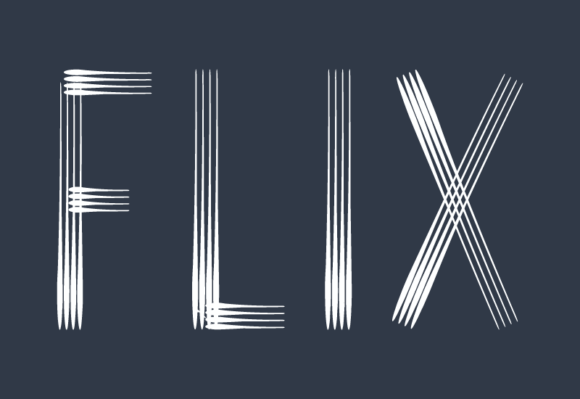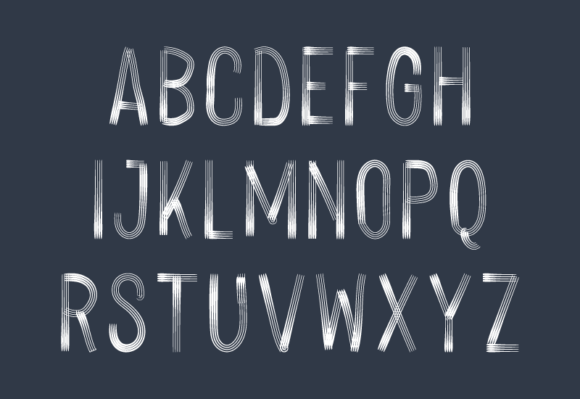
Introducing Flix: The Unbridled Display Font that’s Redefining Typography
In the ever-evolving world of typography, a new font has emerged to shake things up and push the boundaries of conventional design. Say hello to Flix, a contemporary display font that’s as bold as it is unconventional. With its distinctive rough and grunge aesthetic, Flix is the perfect choice for designers and crafters who dare to challenge the status quo and take the road less traveled.
The Birth of Flix: A Font with an Edge
Flix is more than just a font – it’s an attitude, a statement, and a rebellion against the ordinary. Its audaciously rugged design is not for the faint of heart; it’s for those who crave something that stands out from the crowd. The lines in Flix are deliberately rough, giving it a grunge aesthetic that’s raw, untamed, and unapologetic. This font is not about perfection; it’s about character, and the character it exudes is one of unbridled energy and creativity.
What Makes Flix Stand Out?
So, what sets Flix apart from other fonts in the market? Here are a few key features that make it a standout:
- Distinctive Rough and Grunge Aesthetic: Flix boasts a one-of-a-kind rough and grunge aesthetic that’s sure to turn heads. Its irregular lines and shapes give it a unique, hand-crafted feel that’s perfect for designers who want to add a touch of personality to their work.
- Contemporary yet Unconventional: Flix is a contemporary font that’s not afraid to break the rules. Its bold, daring design makes it perfect for projects that require a bit of attitude and swagger.
- Versatility: Despite its bold aesthetic, Flix is surprisingly versatile. It can be used for a wide range of projects, from branding and advertising to packaging and editorial design.
Who is Flix for?
Flix is perfect for designers and crafters who:
- Want to add a touch of edginess to their work
- Are looking for a font that can help them stand out from the crowd
- Appreciate unique, hand-crafted design
- Are working on projects that require a bold, daring aesthetic
How to Use Flix Effectively
To get the most out of Flix, here are a few tips:
- Use it sparingly: Due to its bold aesthetic, Flix is best used sparingly. Use it for headings, titles, or key phrases to add emphasis and create visual interest.
- Pair it with contrasting fonts: To create visual interest, pair Flix with contrasting fonts that are clean, simple, and elegant.
- Experiment with colors: Flix looks great in bold, bright colors. Experiment with different colors to find the perfect combination that works for your project.
Flix is more than just a font – it’s a movement, a rebellion against the ordinary, and a celebration of creativity and individuality. With its distinctive rough and grunge aesthetic, Flix is the perfect choice for designers and crafters who dare to challenge convention and take the road less traveled. So, if you’re ready to shake things up and add a touch of edginess to your work, look no further than Flix, the unbridled display font that’s redefining typography.